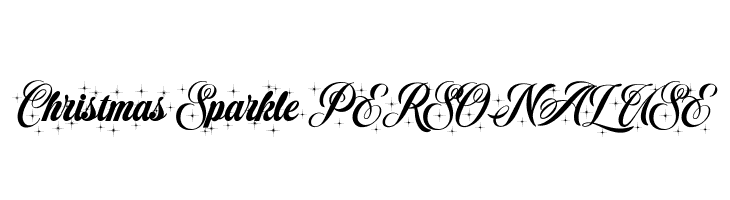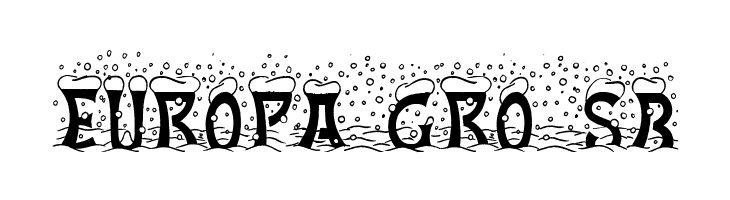
A festive, snowflake-adorned decorative font perfect for holiday themes.
A playful, hand-drawn style font with bold, rounded strokes.
A festive, star-adorned script font with a playful, hand-drawn style.
A festive, italicized handwritten font with snowflake embellishments.
A playful, rounded font with smooth strokes and a friendly appearance.
A festive, decorative font with star embellishments and curly accents, perfect for holiday themes.
A festive decorative font with Christmas-themed elements in uppercase letters.
A festive typeface with Christmas-themed decorations in uppercase letters.
A festive, sparkling script font ideal for holiday designs.
A playful, festive font with a hand-drawn, dotted texture ideal for holiday themes.